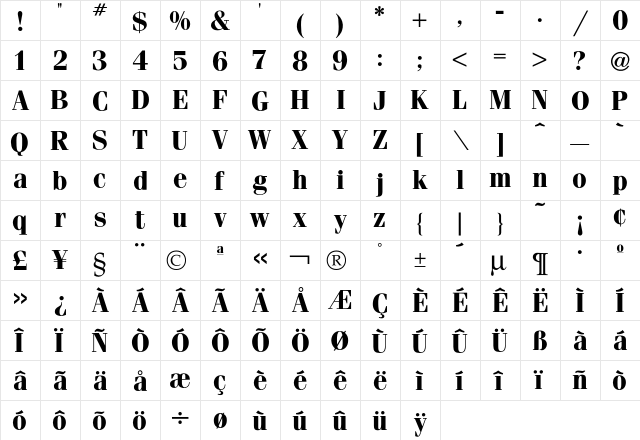
Fenice Bold
Design Context for Fenice Typeface
Fenice offers clean, dependable letterforms without strong stylistic allegiance, making it a practical choice for designers who need flexibility. The heavy weight commands attention and anchors typographic hierarchies.
Pro Tip: Use Fenice in both headline and body roles to test its range before committing to a single application.